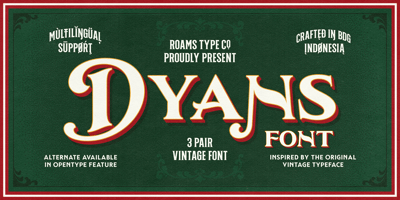
RT Dyans Font Family was designed by Abdul Rochman and published by Veteran Type. RT Dyans contains 3 styles and family package options. Dyans Font Family is a type of font that is inspired by vintage handwriting art that is often used in signwood, signpainting and others, usually this font is very suitable for manual hand lettering or hand painting art. This font uses the open type feature so you can explore alternative types in certain letters.EnjoyedThis font conssist of: Stylistic Set Alternate Character Multilingual Support Math Symbol Numeral & Punctuation Hope your enjoy using this fontThank You.